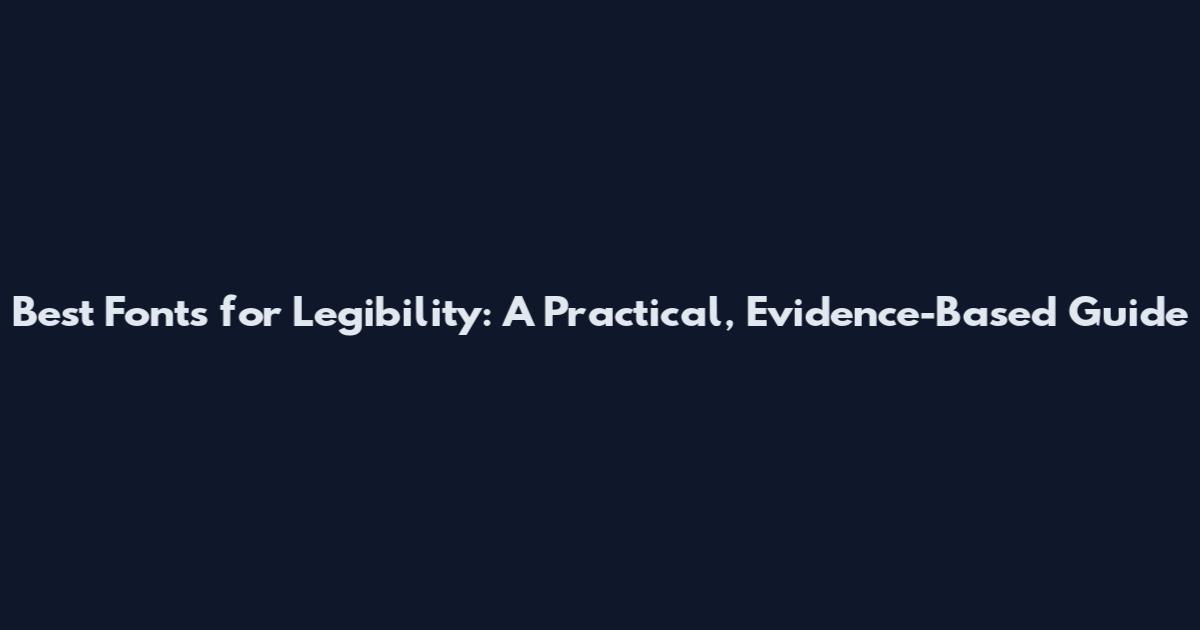
Best Fonts for Legibility: A Practical, Evidence-Based Guide
What makes a font legible
Legibility is how easily characters can be distinguished at a glance; readability is how comfortably continuous text can be read over time. Good legibility comes from open counters (e.g., the inside of an “e”), clear letterforms, consistent spacing, and sufficient contrast with the background. X-height, stroke weight, and character shape all contribute. On screens, factors like rendering (grayscale vs. subpixel), size, line length, and line spacing interact with font choice to determine comfort. Prioritize simple, functional letterforms over extreme stylization for extended reading.
Why legibility depends on context
There is no single “best” font for every situation. A font that reads well on a bright mobile display may behave differently in print, at small sizes, or when used in dense data tables. Consider viewing distance, medium, lighting, and reader familiarity. Accessibility considerations such as dyslexia, low vision, and situational constraints (e.g., glare or motion) also matter. Evaluate choices in the actual conditions where content will be consumed rather than relying on aesthetics alone.
Screen vs. print rendering
Screens render type using pixels and, on most modern displays, subpixel antialiasing. Subtle stroke variations can appear heavier on screen than in print. Good on-screen fonts are designed to maintain clarity across sizes and resolutions. Print allows finer detail, supporting more delicate contrast and hairlines. Choose fonts whose design intent aligns with the output medium and production quality.
Type anatomy and legibility features
Certain design elements commonly improve legibility: open apertures, distinguishable characters (such as uppercase I, lowercase l, and the numeral 1), moderate to large x-height, generous counters, and clear punctuation. Avoid overly condensed or compressed widths for body text; be cautious with scripts and handwriting styles that prioritize style over clarity. For UI and digital interfaces, aim for consistent proportions and predictable shapes.
These fonts are widely recommended for body text and interfaces where clarity and neutrality are priorities. Note that system substitutions and rendering conditions affect onscreen appearance; test in context before committing.
General-purpose body text and long-form reading
• Inter—designed for onscreen reading with open shapes and moderate stroke modulation
• Roboto—built for digital interfaces; neutral, open forms at small sizes
• Source Sans 3—humanist style with open apertures and gentle rhythm
• Noto Sans—large family, extensive weights, designed for legibility across languages
• Lato—clear letterforms and even spacing for UI and body copy
High-contrast situations, small text, and UI elements
• SF Pro (Apple)—optimized for small sizes and Retina displays
• Roboto—strong on Android and Material Design systems
• Segoe UI—Windows system UI font tuned for clarity at small sizes
• Inter—performs well in both text settings and interface controls
• Open Sans—wide adoption and good legibility in web interfaces
When higher familiarity and neutrality help
• Arial—simple, widely available, clear at small sizes although less refined than purpose-built screen fonts
• Helvetica—neutral and adaptable; good for short blocks and UI when size permits
• Verdana—large x-height and generous counters designed specifically for onscreen legibility at the cost of some compactness
• Georgia—designed for screen legibility in print contexts; clear serifs and strong contrast
• Times New Roman—ubiquitous and familiar; legible at larger sizes in print and when line spacing is increased
Variables, weights, and spacing control
Variable fonts let you fine-tune weight, width, and slant in a single file, which can improve clarity across sizes. At very small text (e.g., captions), a tighter tracking (slightly negative letter-spacing) can help; at body sizes, open tracking (slightly positive) supports rhythm. Ensure strong contrast against the background and avoid low-contrast combinations. Adjust line length to around 45–75 characters per line and line spacing to roughly 1.3–1.6 times the font size for comfortable reading.
Practical checks for choosing fonts
Use this checklist when evaluating legibility across contexts. Tailor choices to audience needs and accessibility considerations, and always test with real content and users.
Quick audit table
• Context—screen vs. print, size, lighting, and audience—dictates the optimal choice.
• For body text and UI, Inter, Roboto, Source Sans 3, Noto Sans, and Lato are strong neutral options; system fonts like Segoe UI and SF Pro are tuned for their platforms.
• Use variable fonts and spacing controls to refine rhythm; always test across devices and with real content.
• Combine legible base fonts with intentional typographic systems and accessibility checks to serve diverse readers.